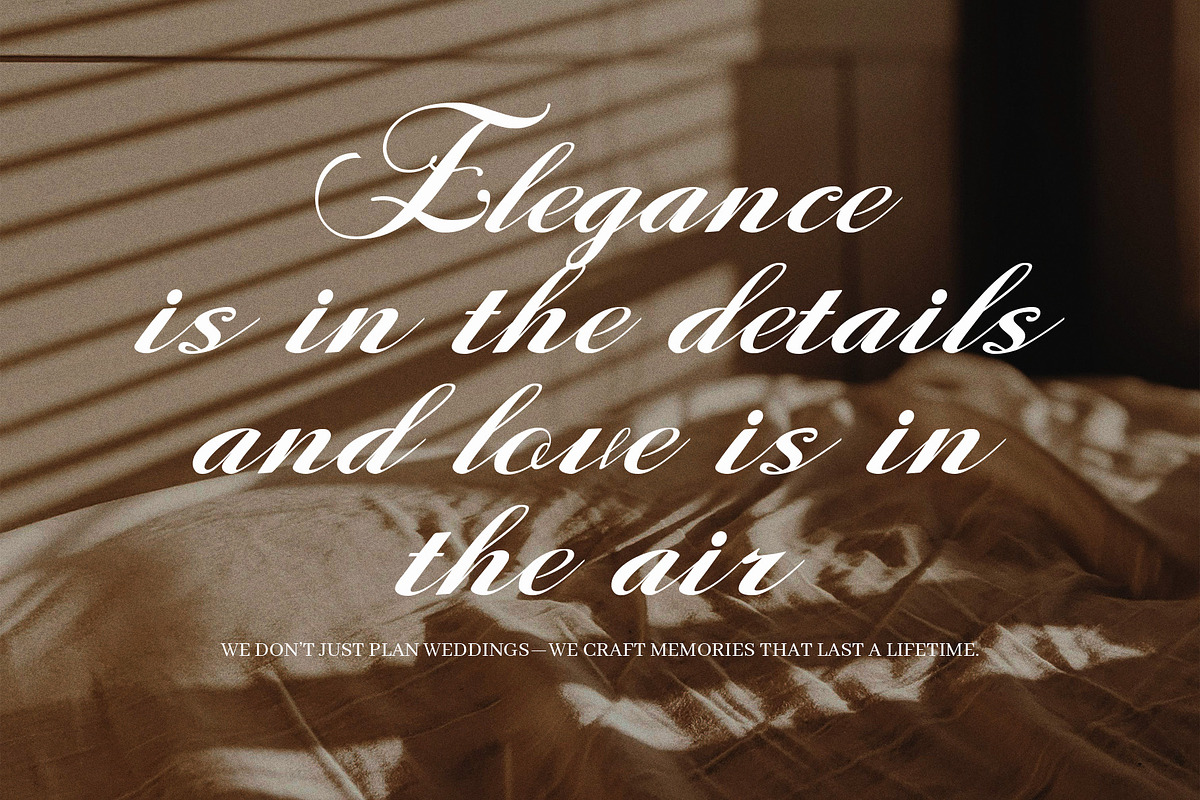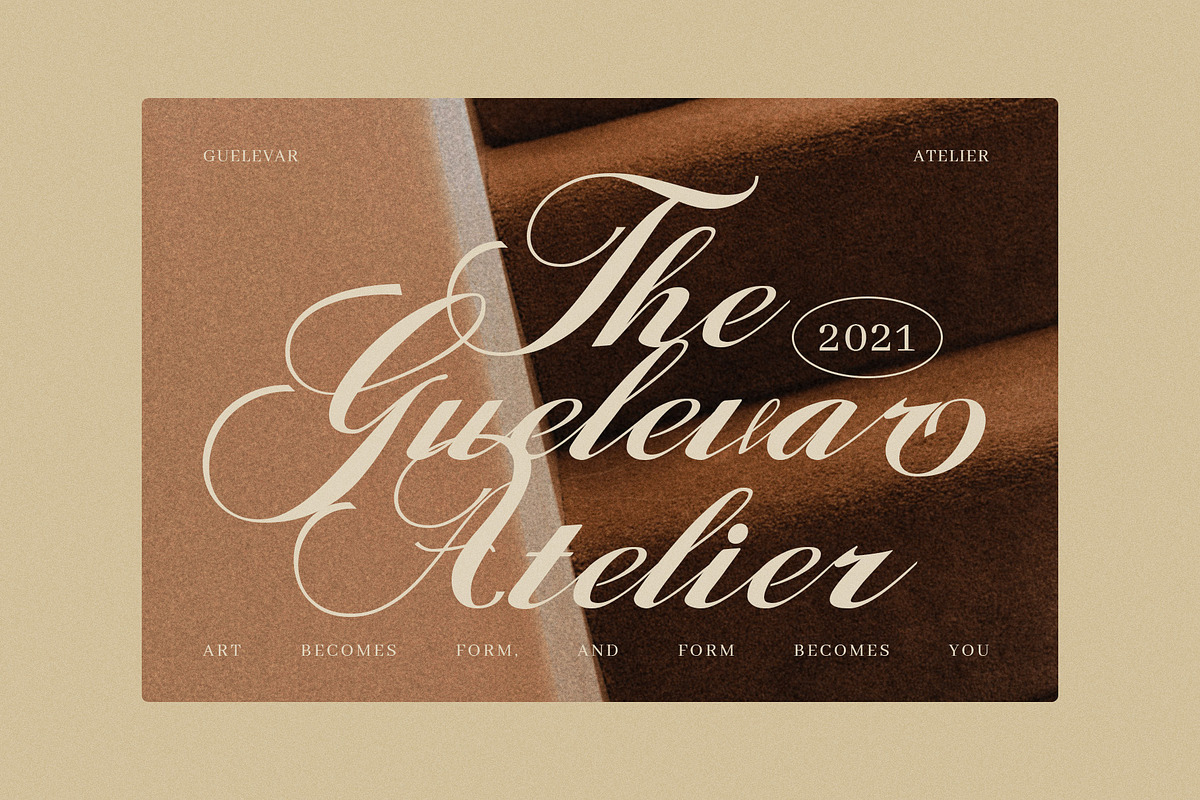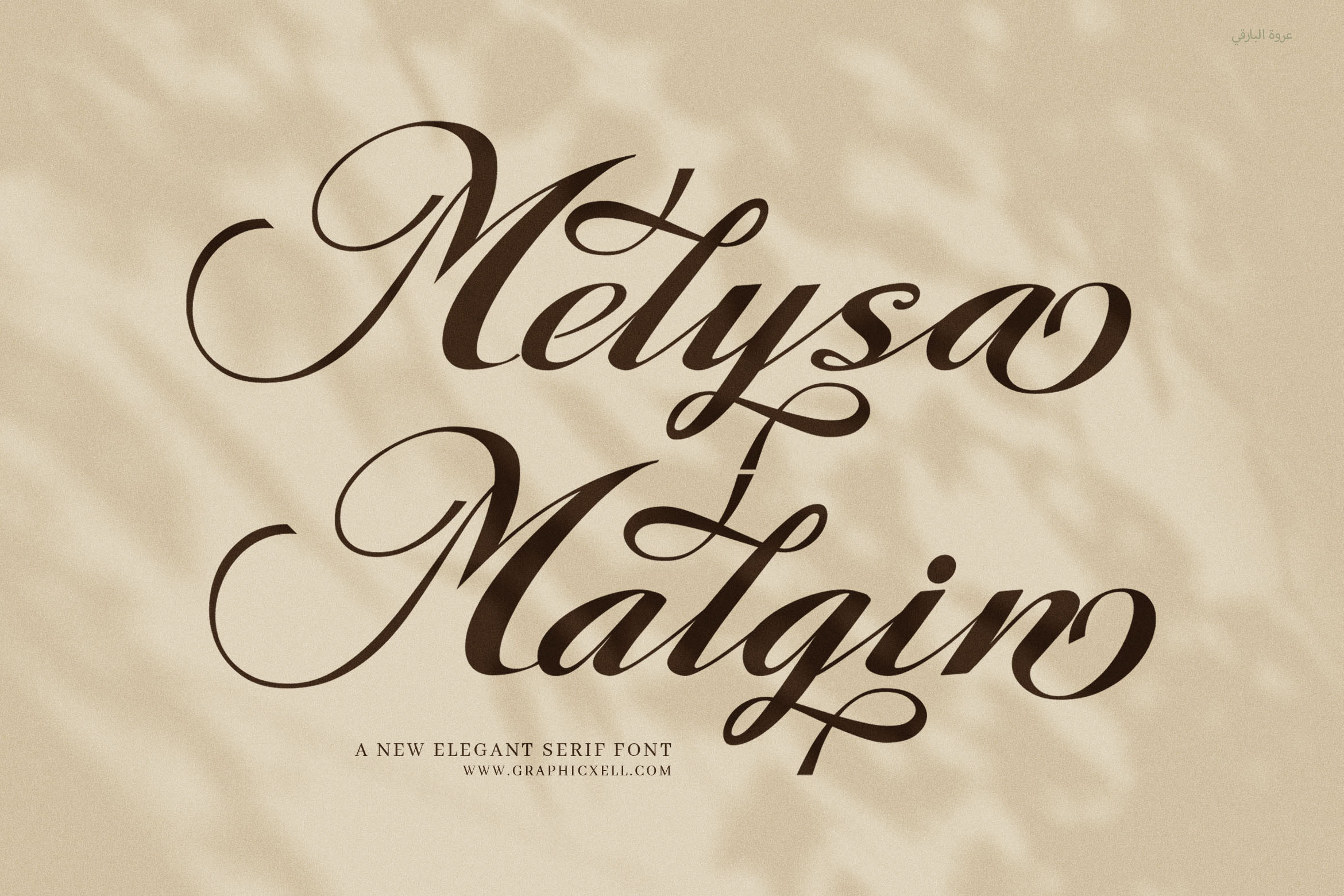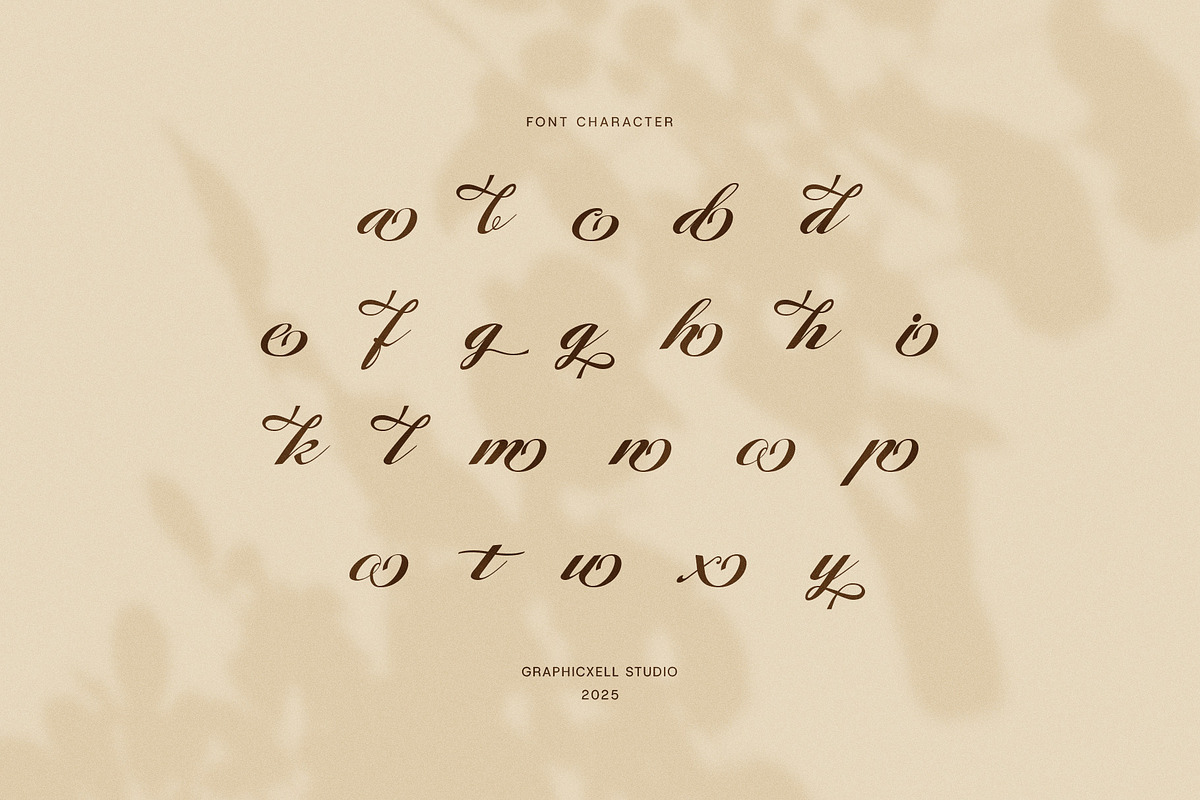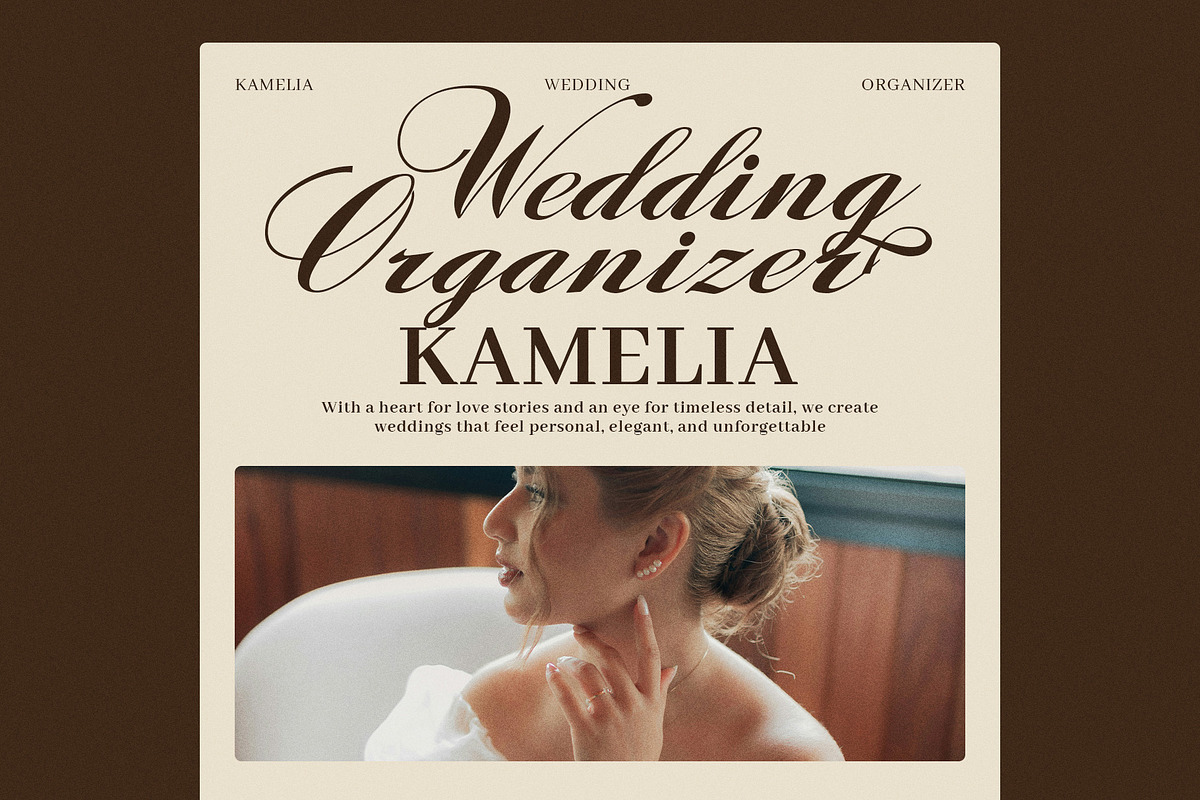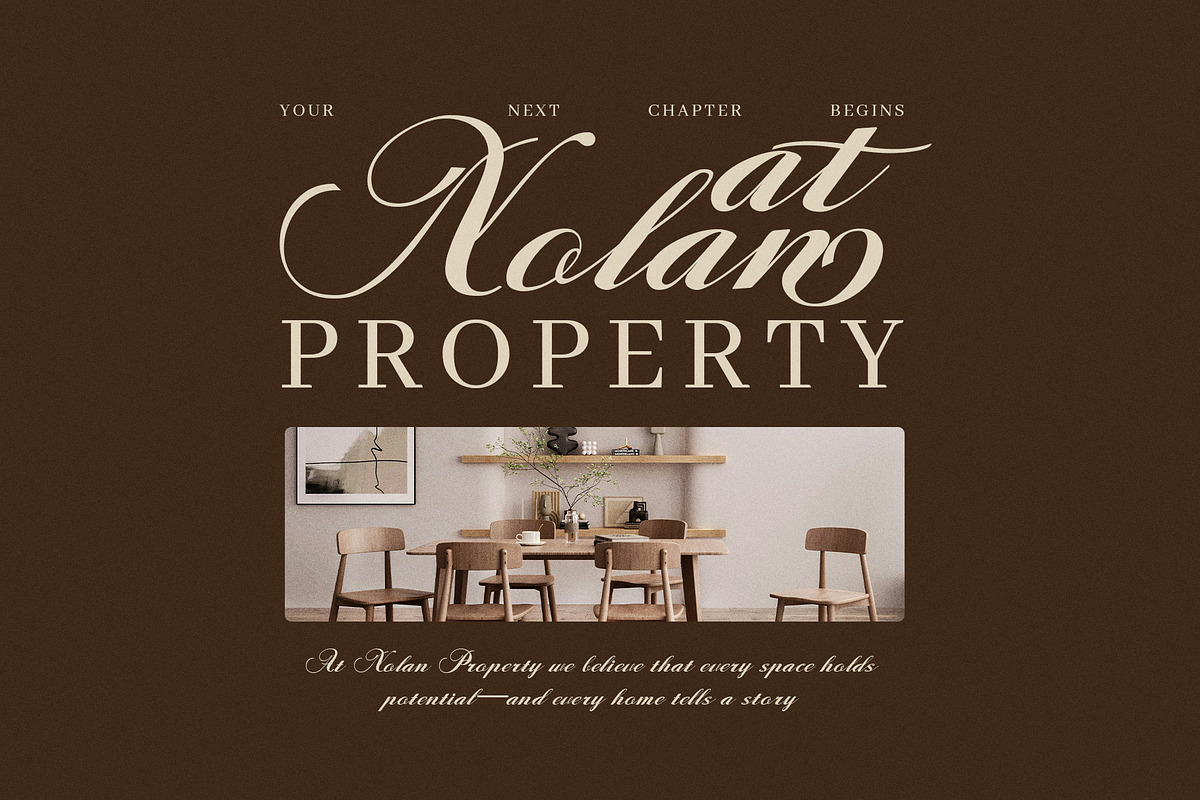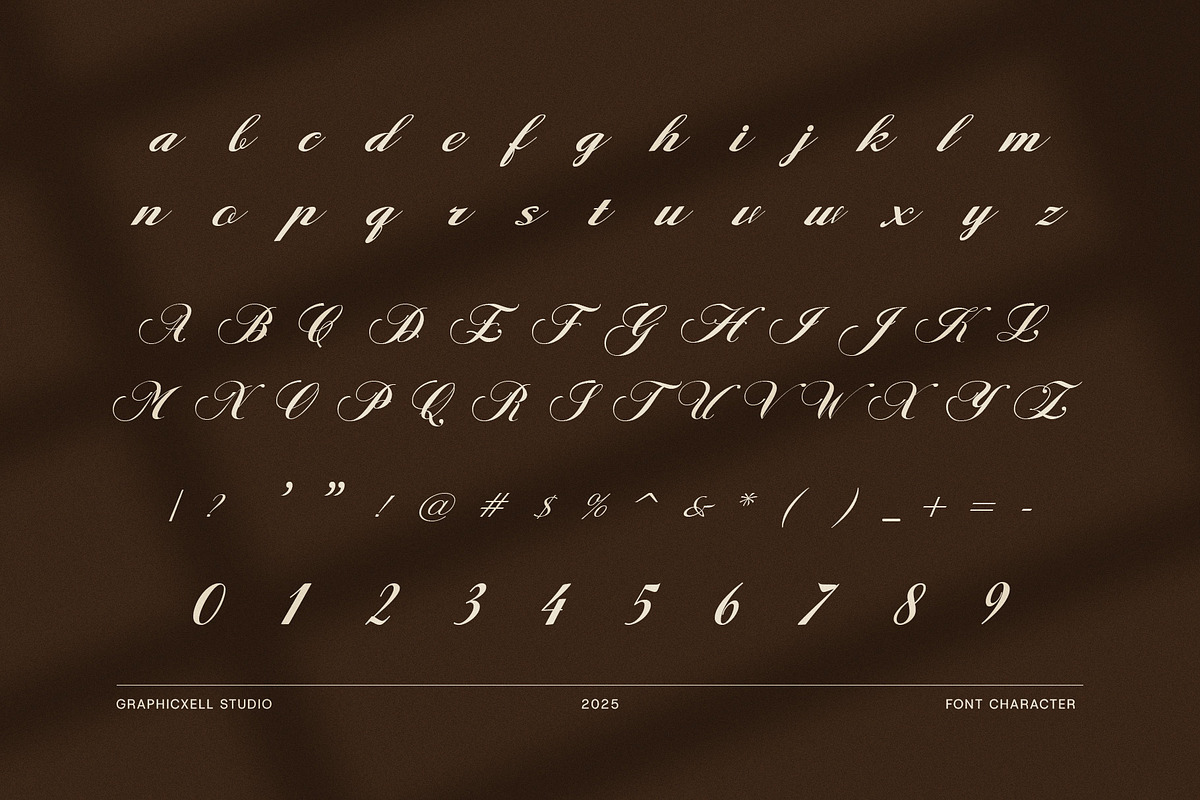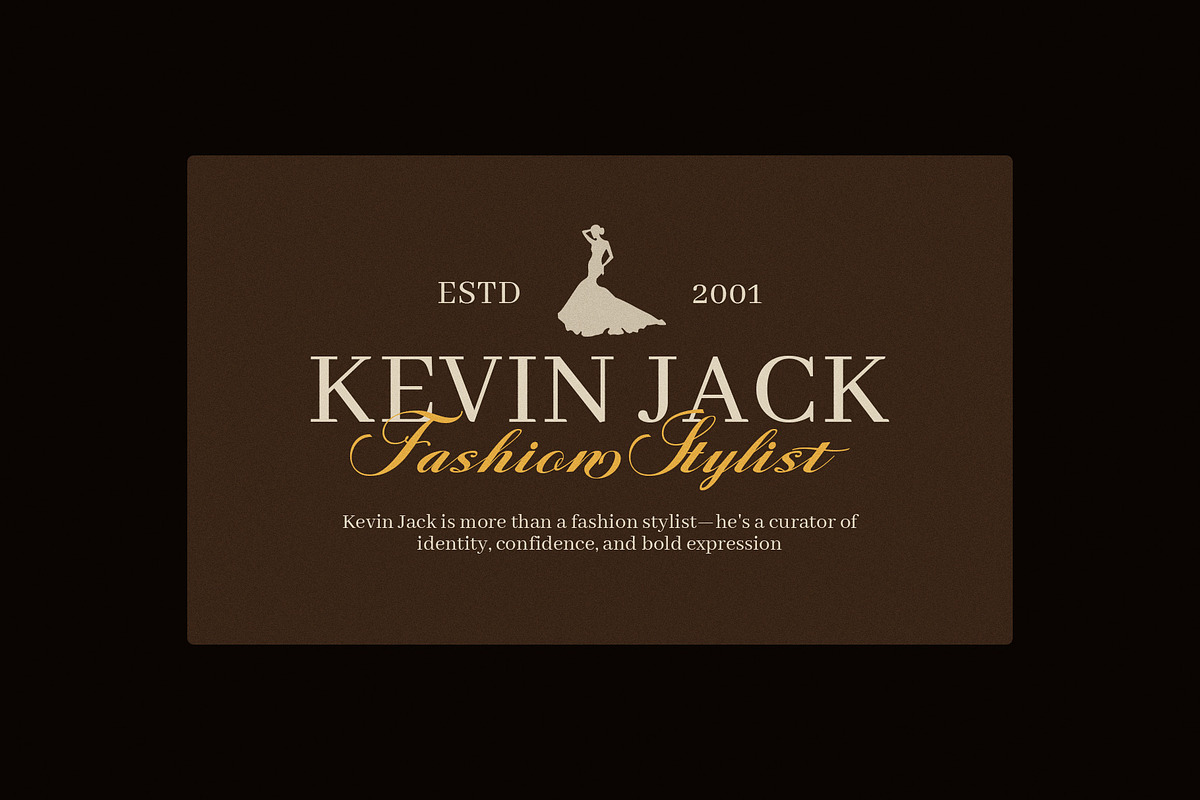
Melysa Malgin Script Font
Experience the beauty of the Melysa Malgin Calligraphy Script Font, a stylish and elegant font designed to make your projects shine. This font features smooth, flowing letters with many alternate styles. Therefore, you can create unique, eye-catching designs every time.
Whether you need a font for branding, logos, or wedding invitations, Melysa Malgin fits perfectly. It also works great for business cards, posters, magazines, album covers, and websites. Thanks to its graceful curves, it adds a classy and timeless feel to your work.
In addition, this font is easy to read but still artistic. It is ideal for both digital and print projects. Plus, it offers a professional look that suits any creative design.
Key features include:
Elegant and classy calligraphy script
Many alternate characters for creative use
Perfect for weddings, branding, logos, and invitations
Suitable for digital and print designs like posters and magazines
By choosing Melysa Malgin, you get a high-quality font that blends style and function. Use it to add a refined and artistic touch to any design. This font helps your projects stand out with its smooth and stylish letters.